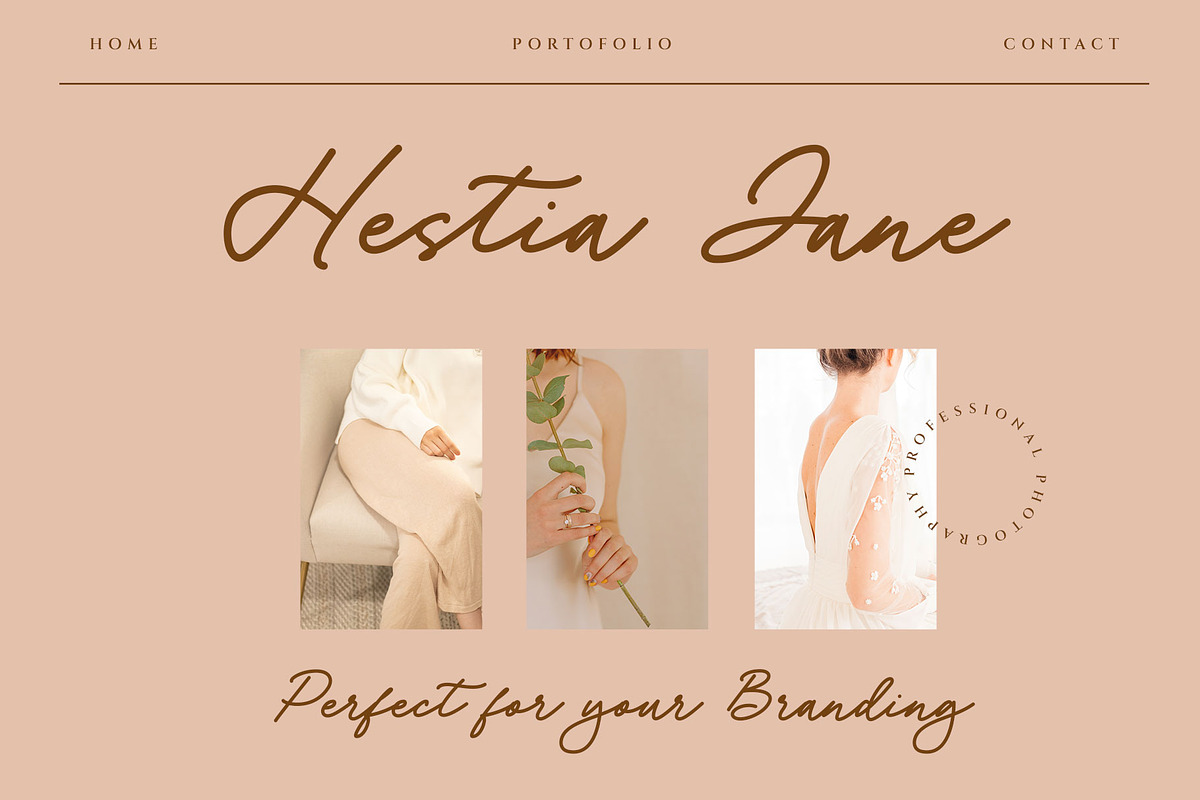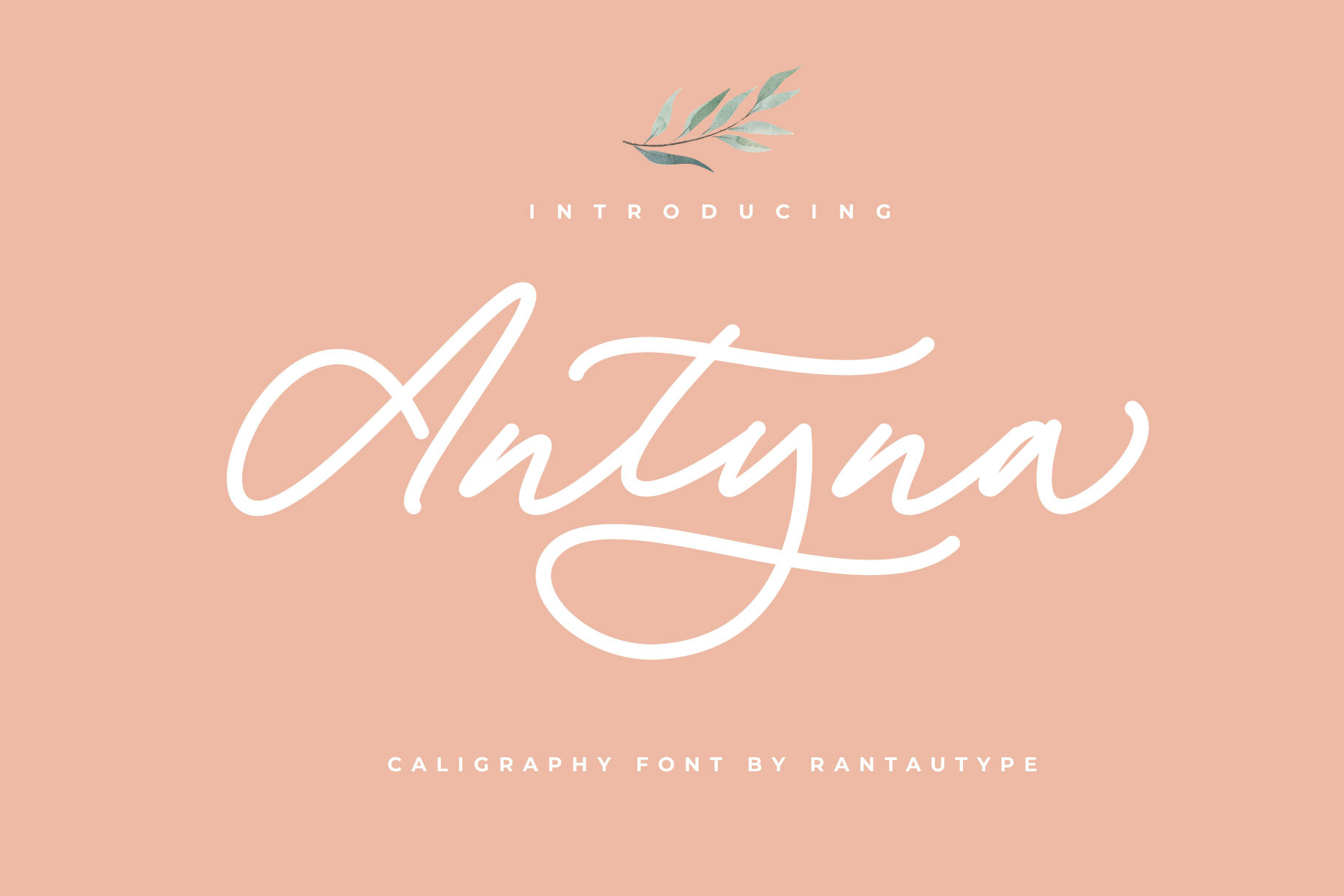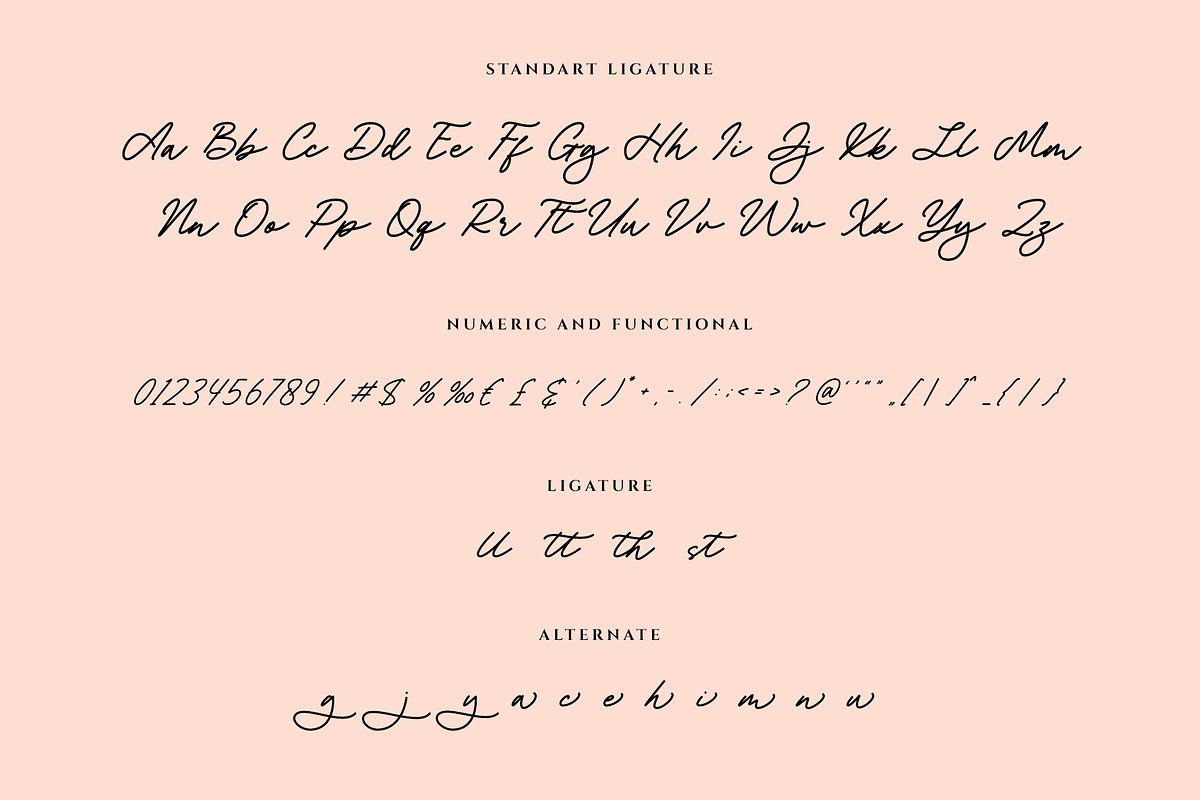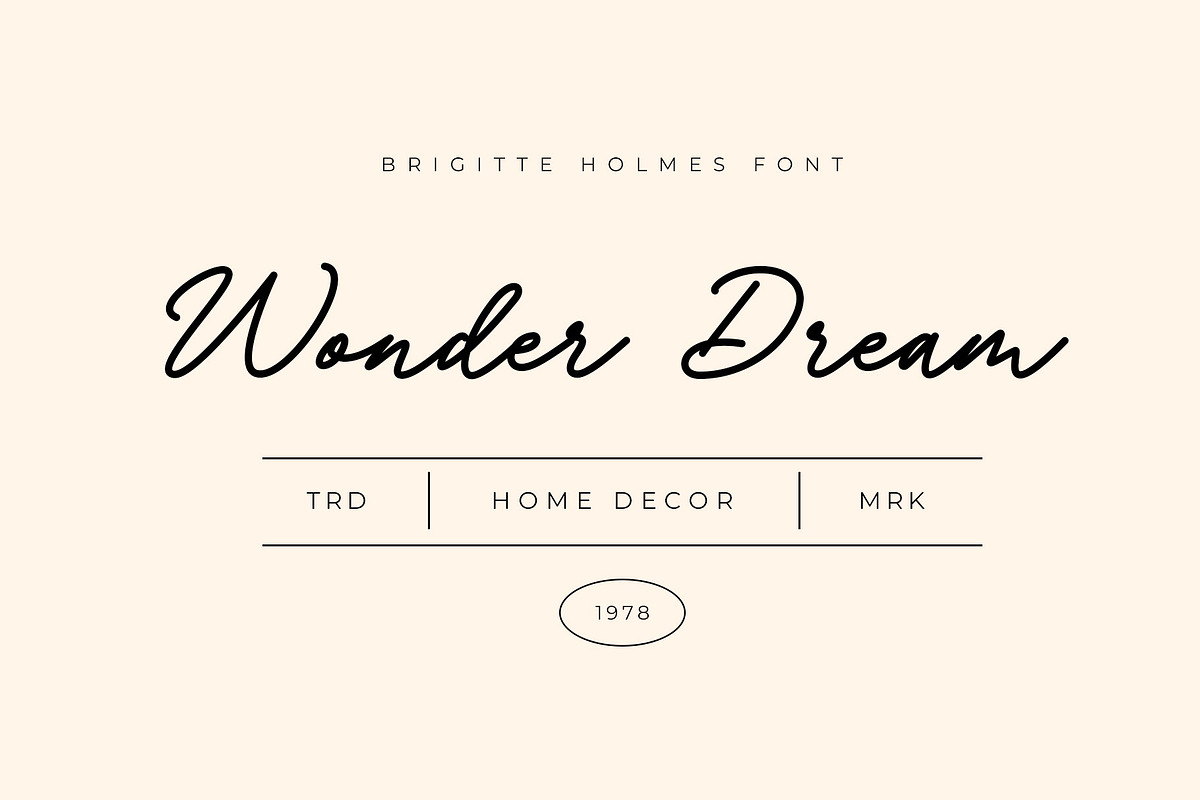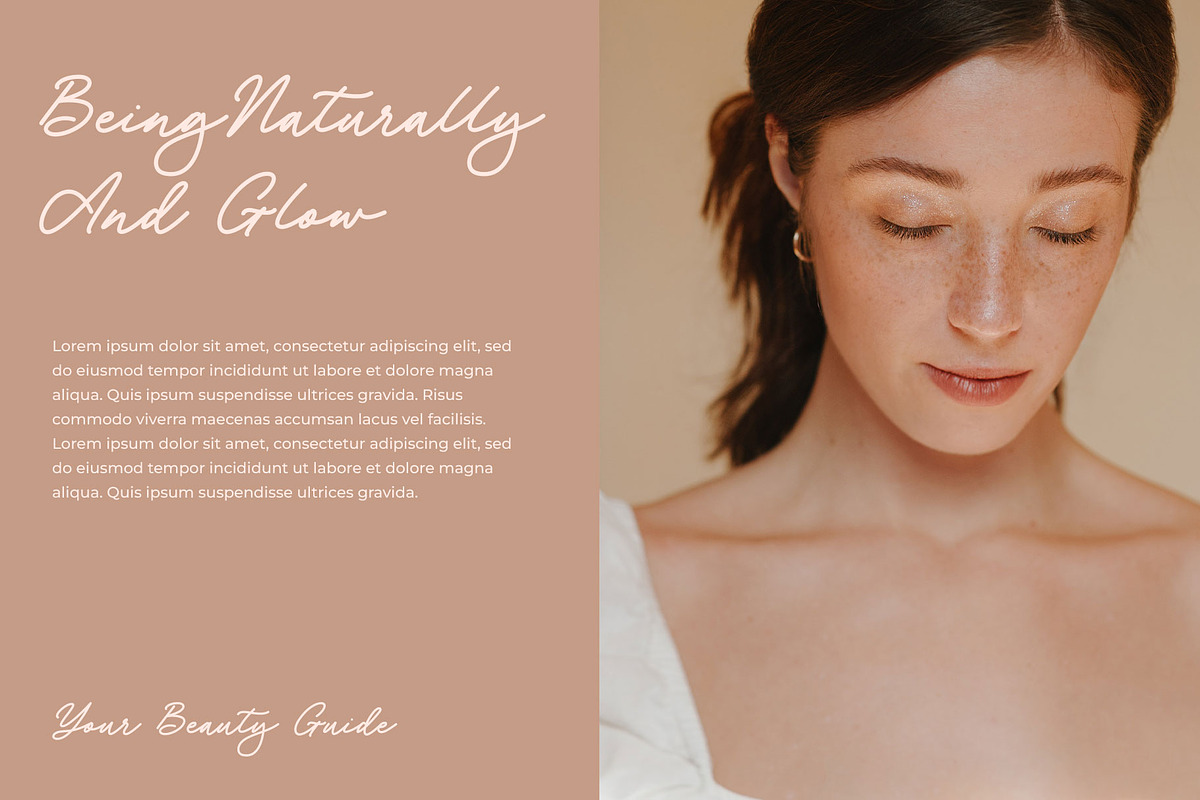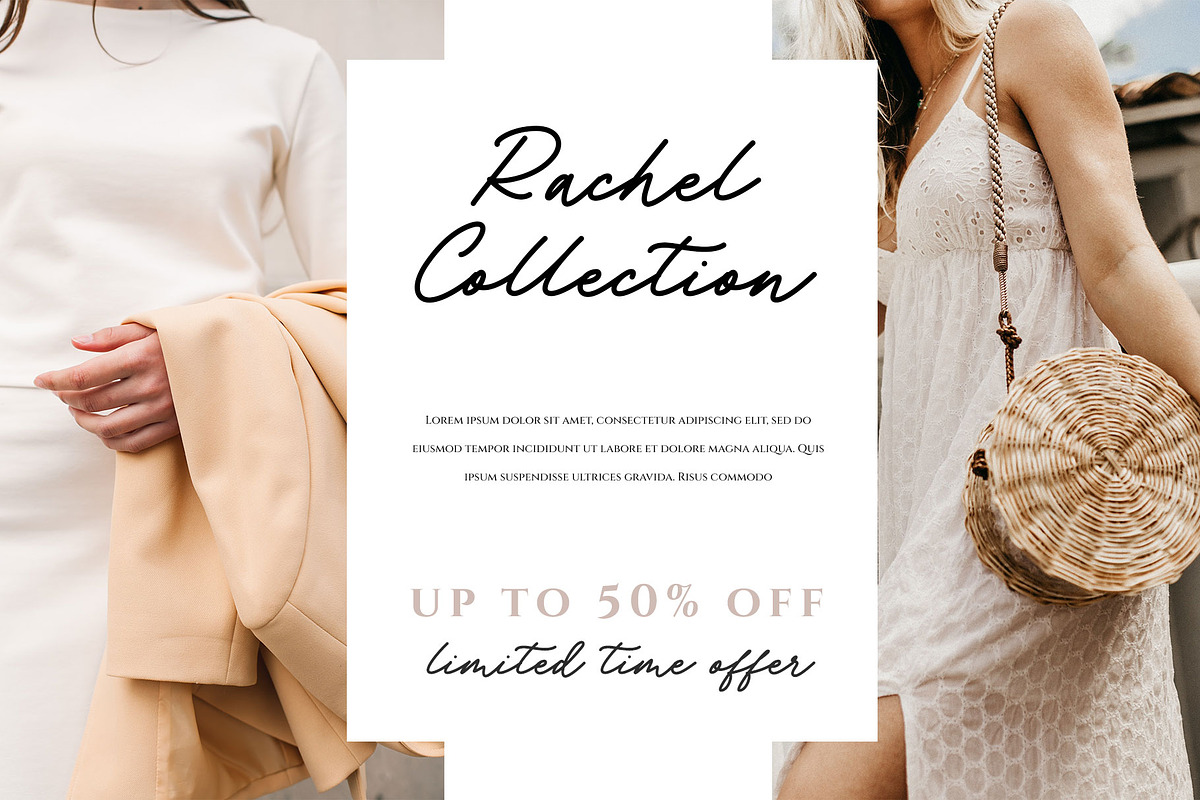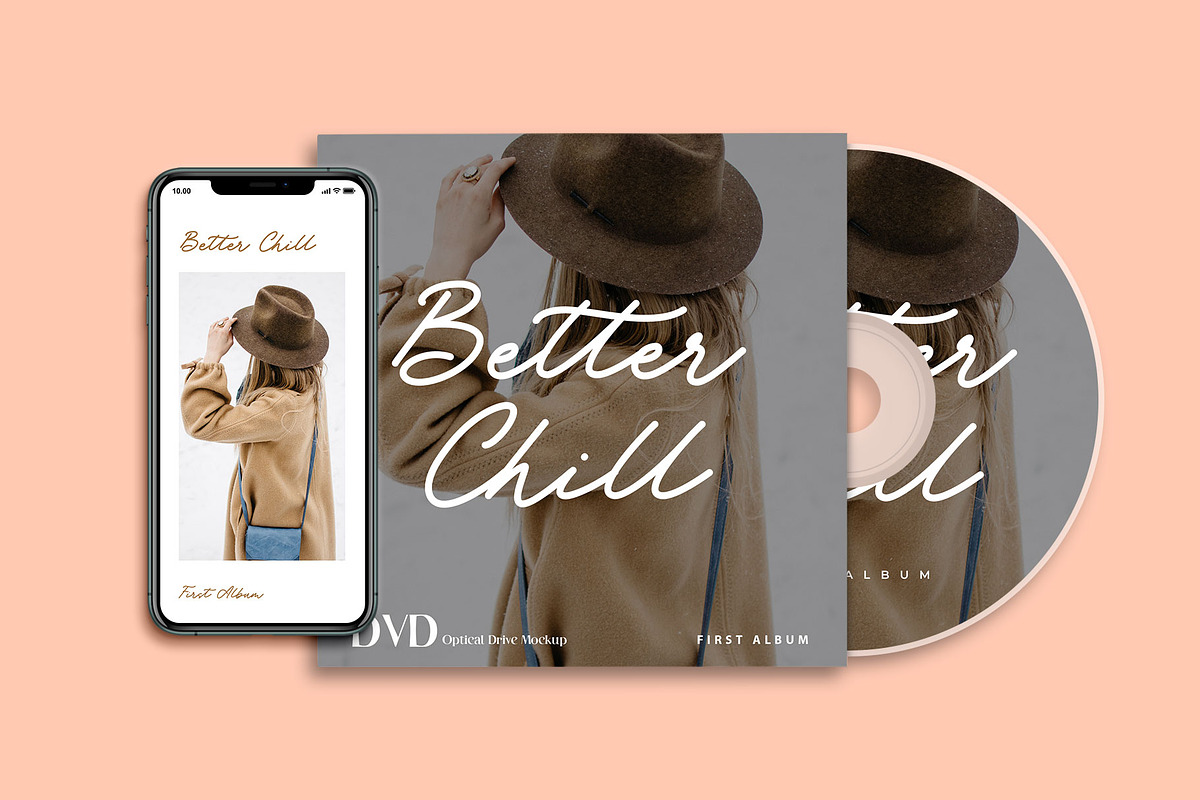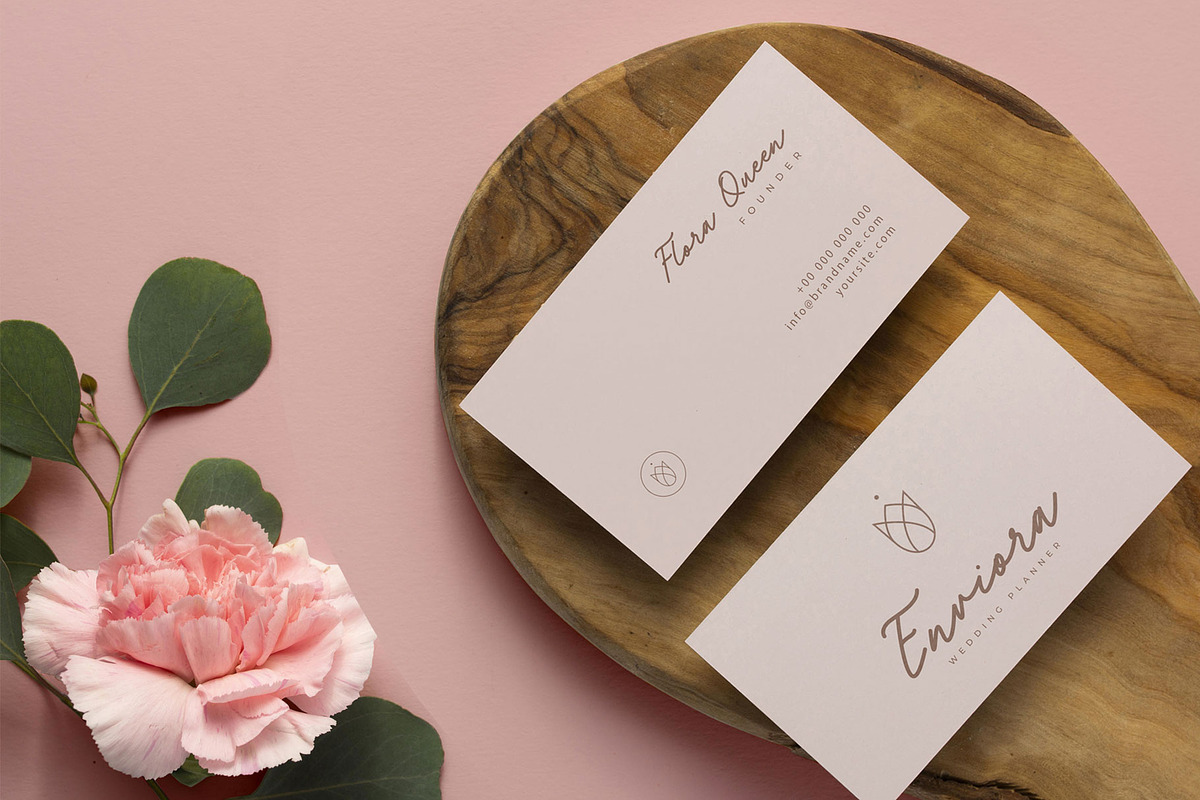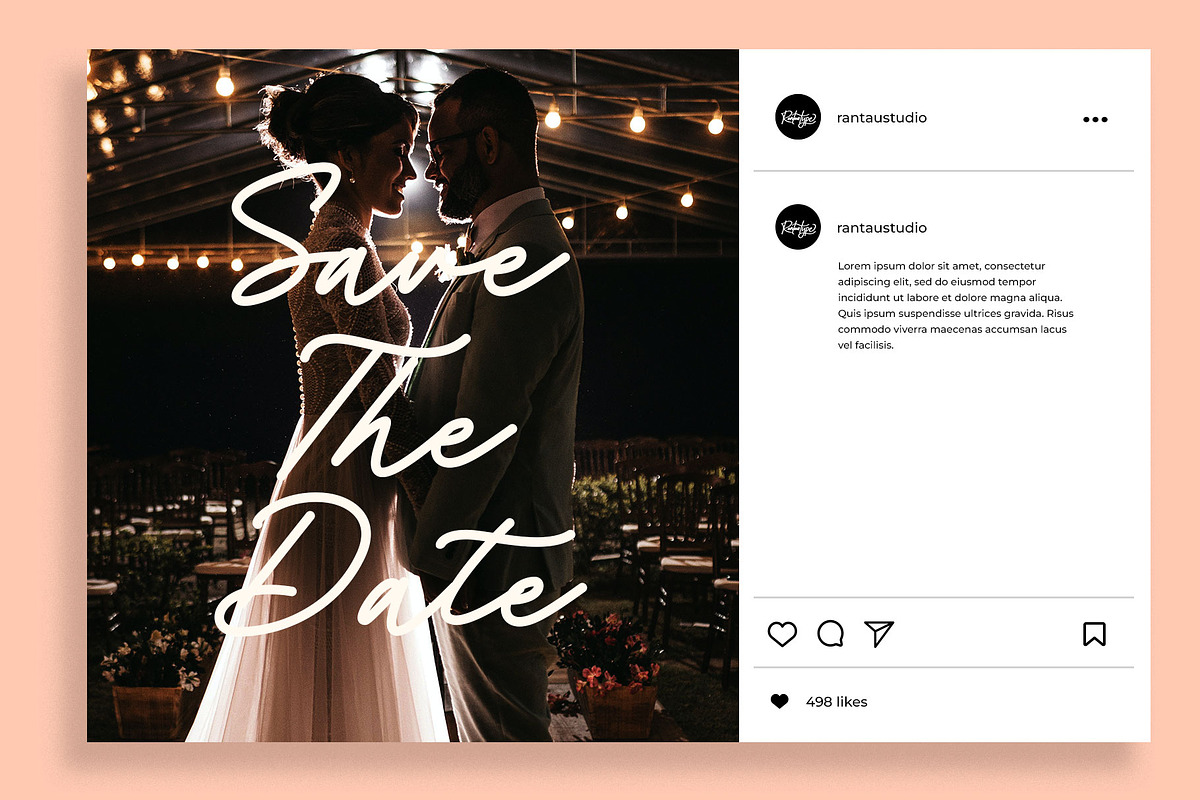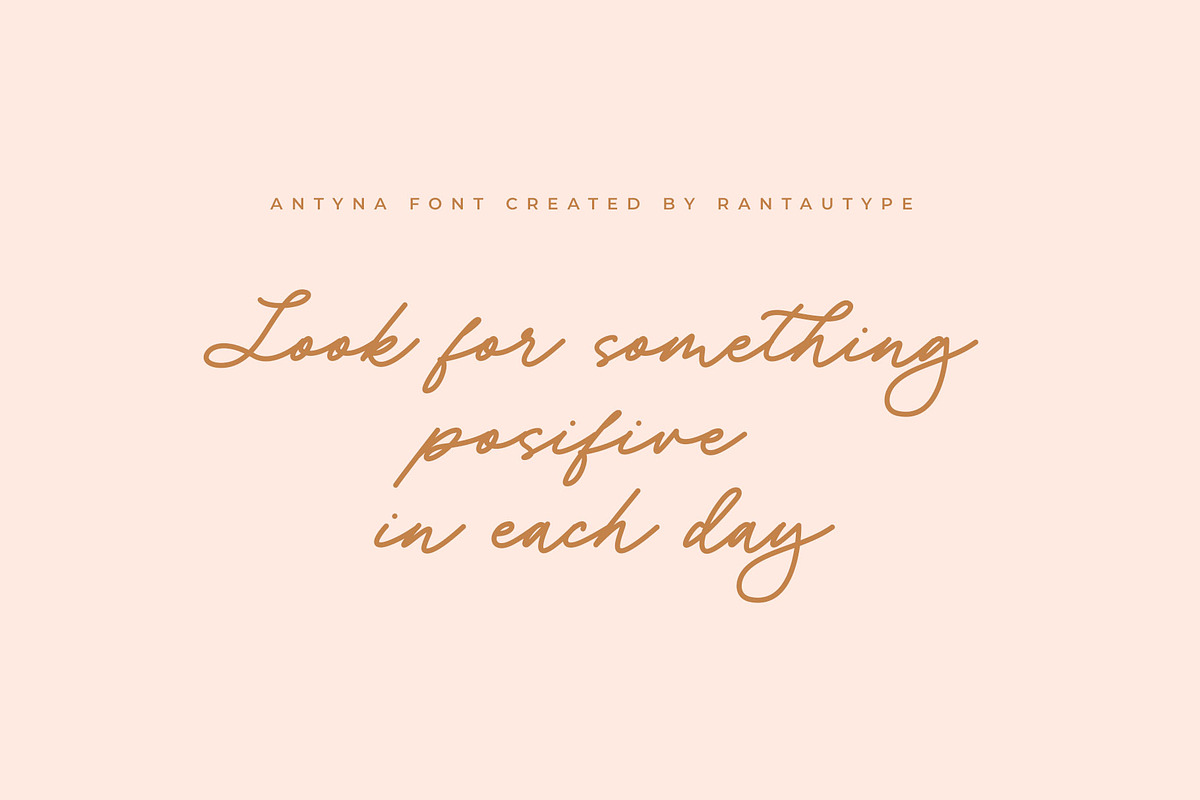
Antyna Handwritten Font
Antyna is girly business font which can be interpreted professional . We keep this font looks modern, feminine, readable, catchy and easy to use. Antyna come with ligature, alternate and multilingual accent support.
Antyna is a beautiful choice for any creative endeavor, chic, lifestyle design such as logos, title, watermark on photography, cover, branding, display and magazine, wedding event, quotes, album cover, business card, corporate, business project and many other design project. Antyna here to make your work stand out!!
- Standar character A-Z and a-z
- Ligature and alternate
- Multilinggual accent support